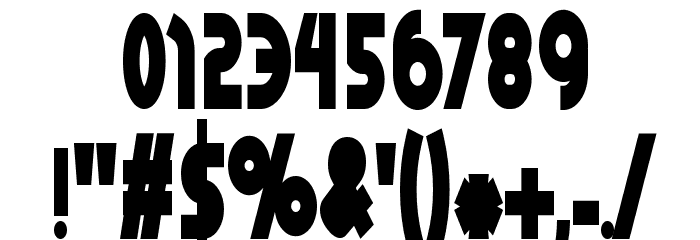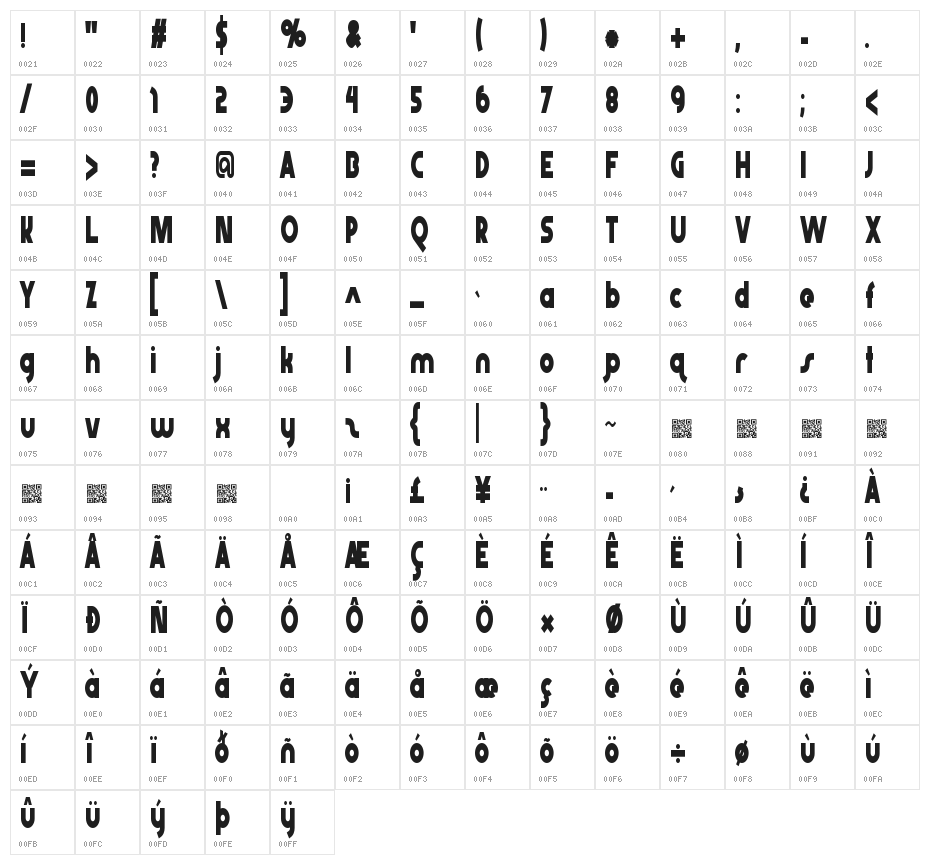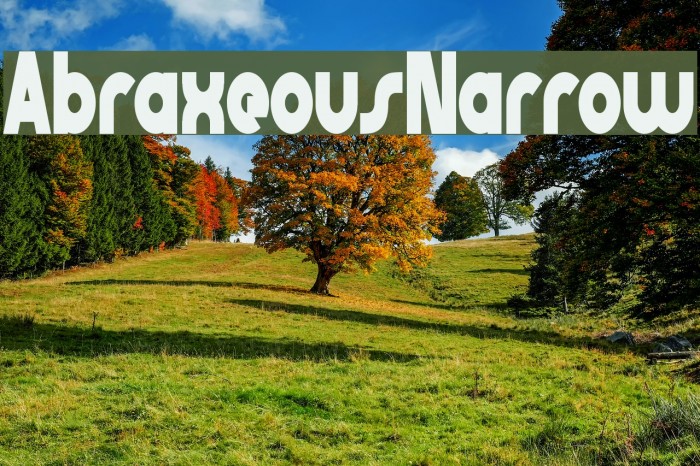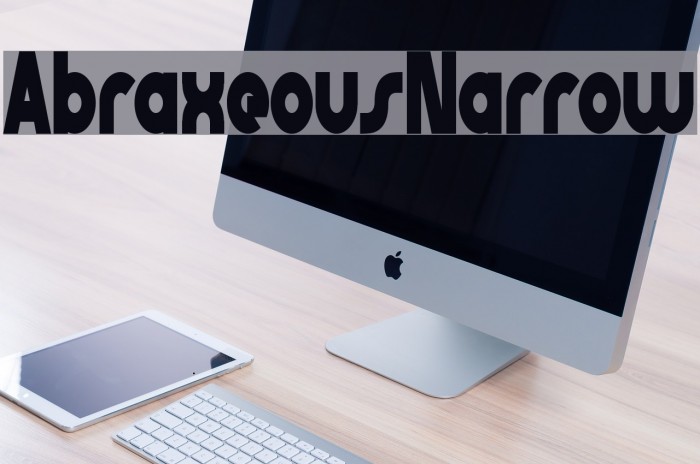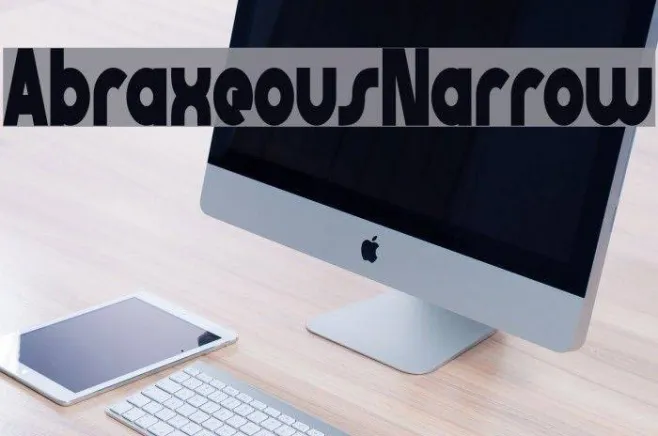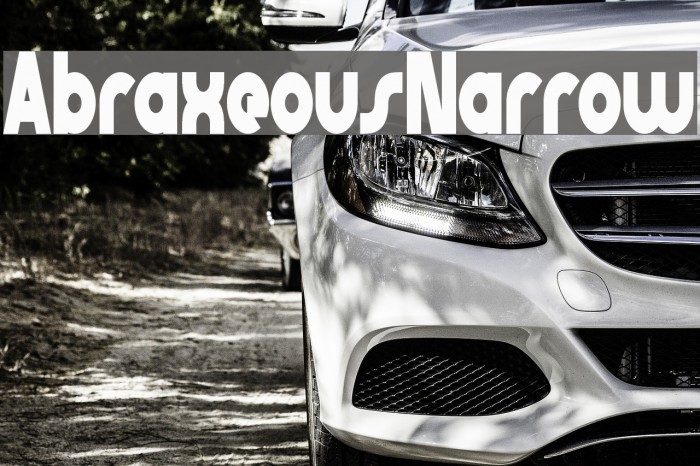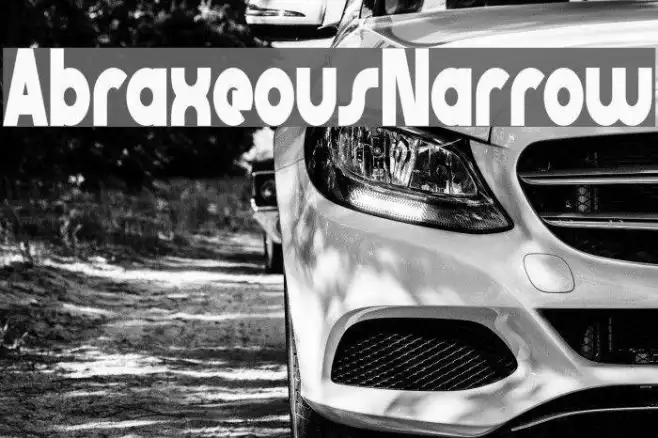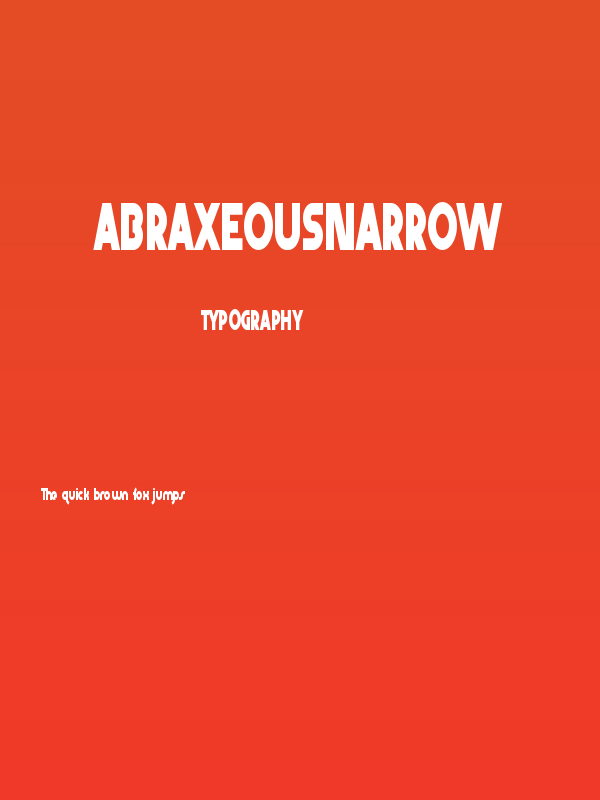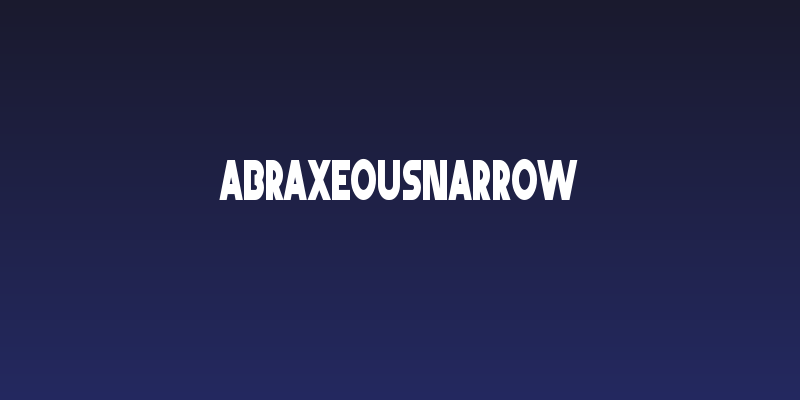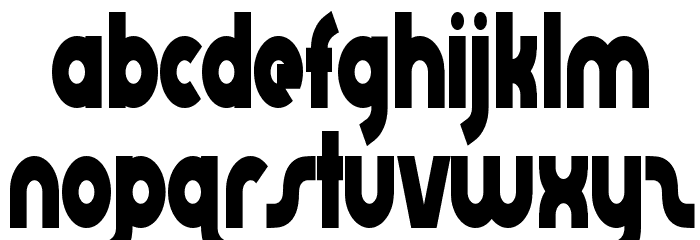
AbraxeousNarrow Font
AbraxeousNarrow Description
This font features a bold and striking design with a strong geometric influence. The uppercase letters are characterized by their thick, blocky appearance, while the lowercase letters maintain a consistent weight, offering a cohesive look. The numerals are distinct and easily readable, with a unique style that complements the overall aesthetic. Special characters are designed to match the boldness of the alphabet, ensuring uniformity across all text elements. The font's narrow width adds a modern touch, making it suitable for contemporary design projects.